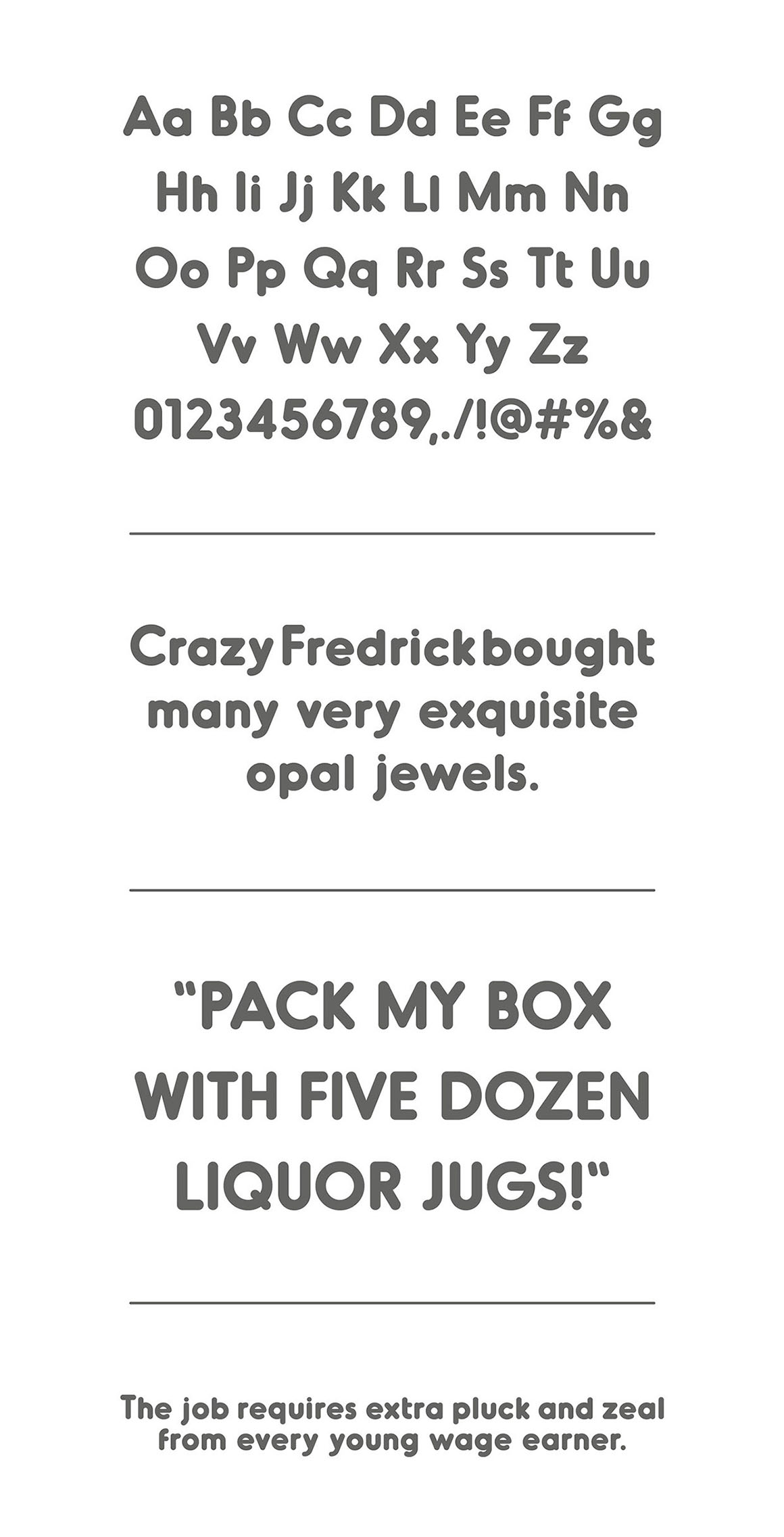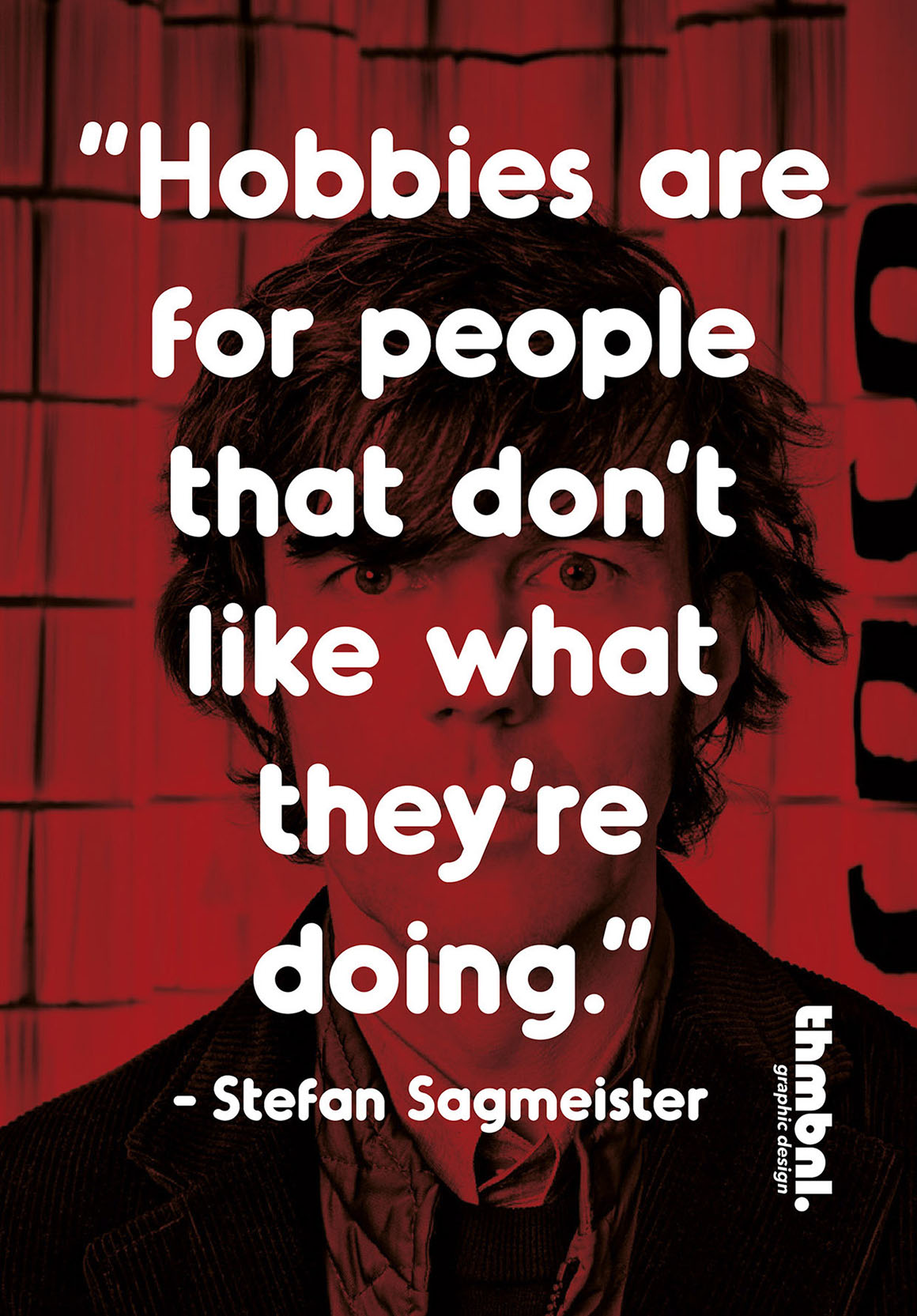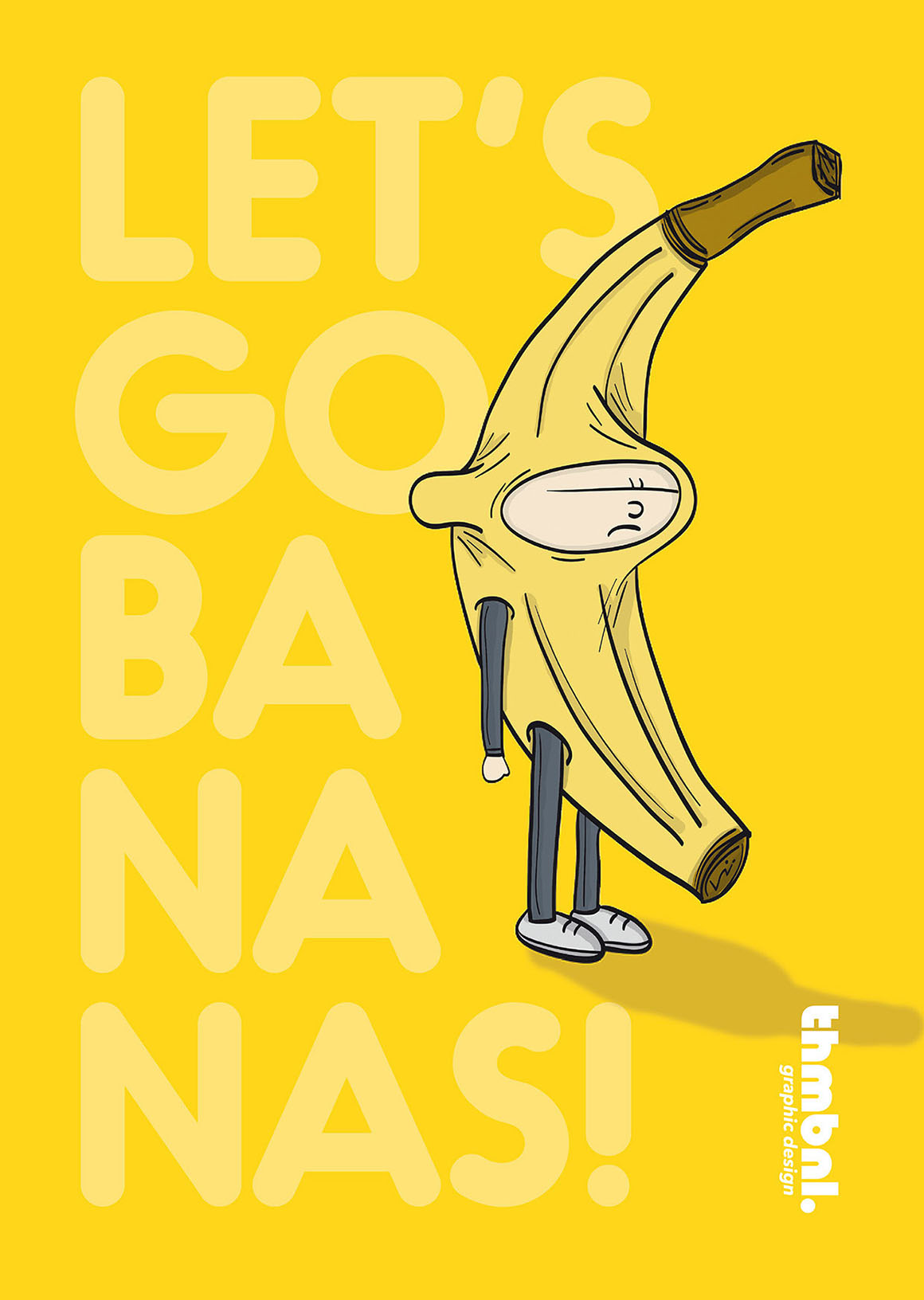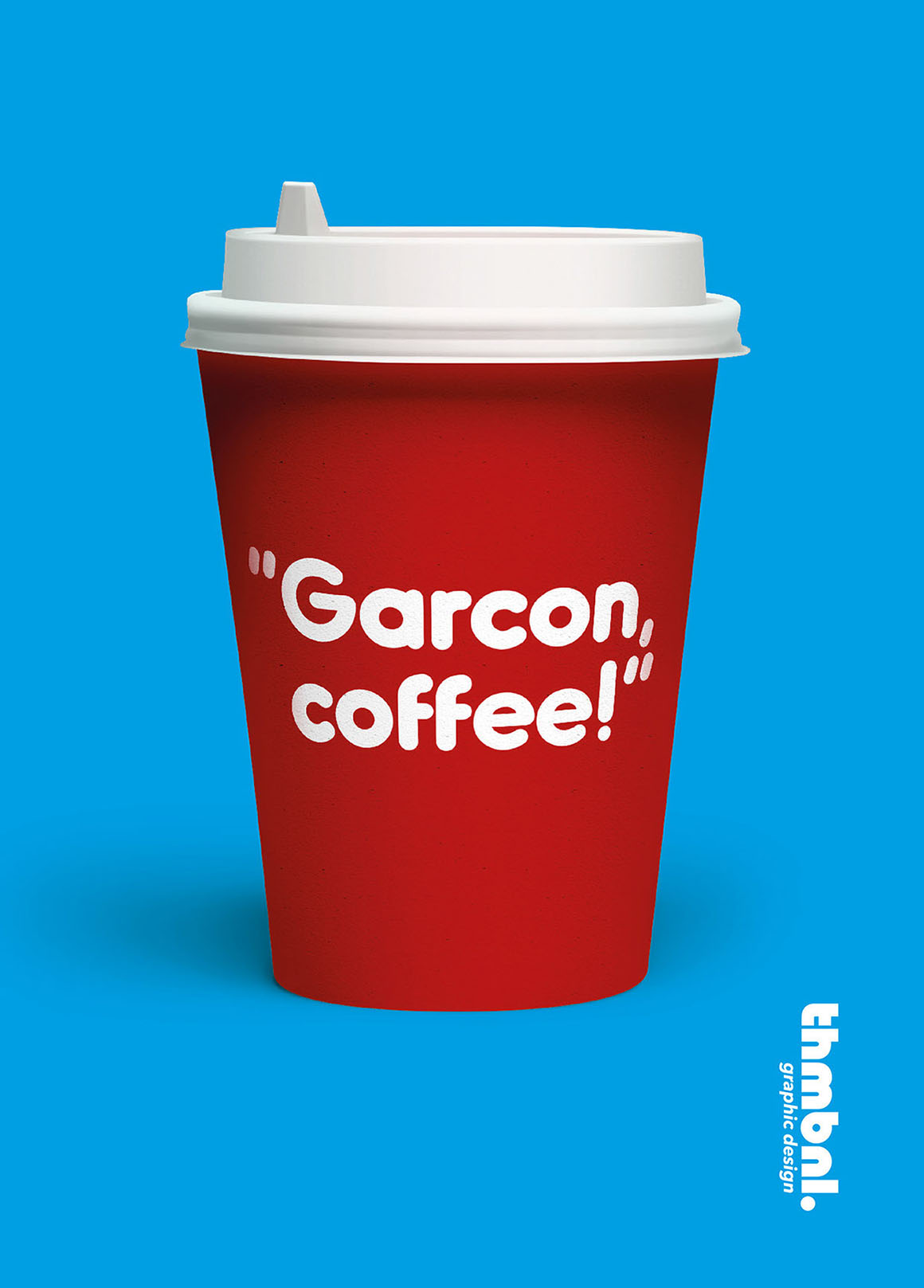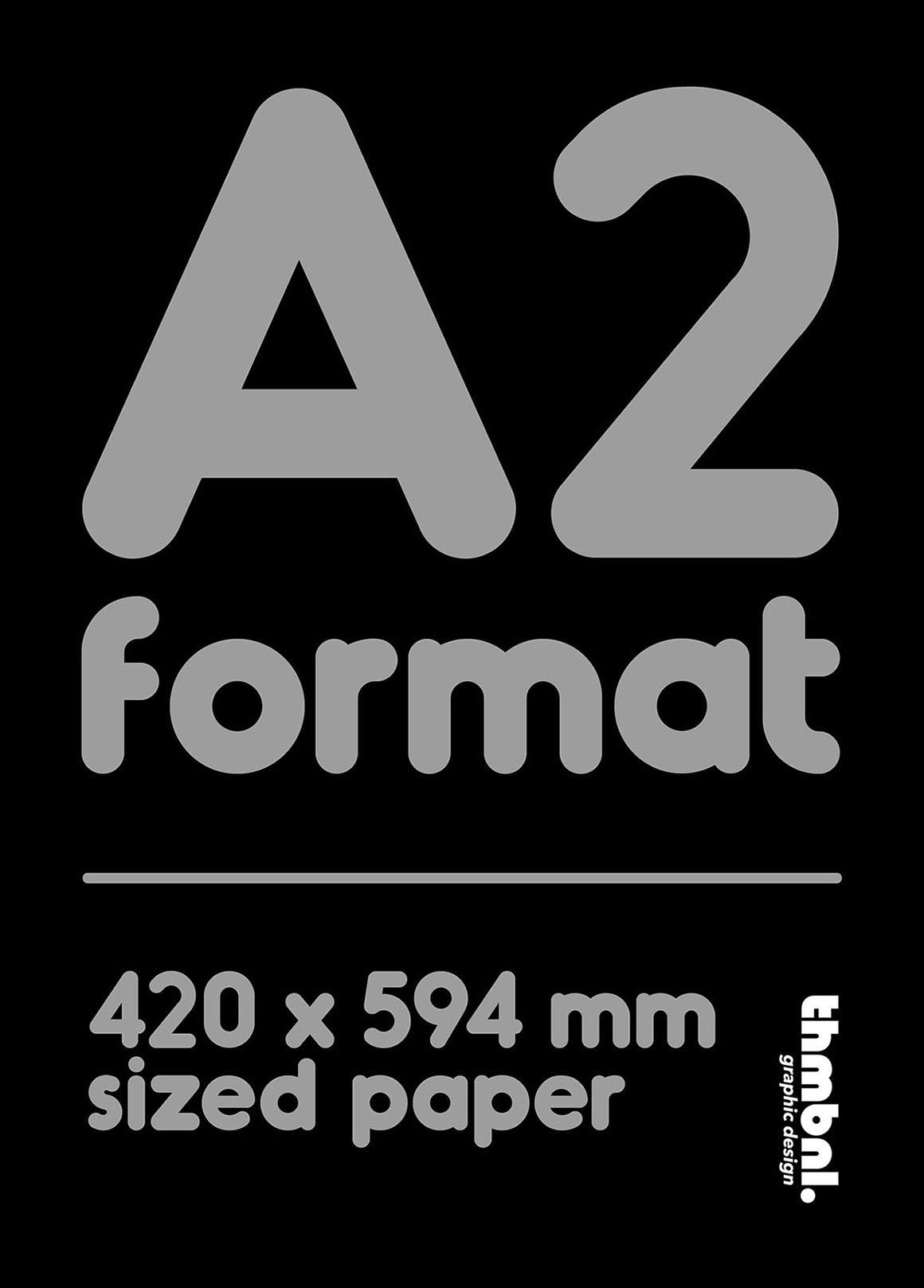
Oduda – Free Rounded Font
This cool custom font is from Thom Niessink. With cool rounded style and great for your new creative projects. Download and enjoy 😉